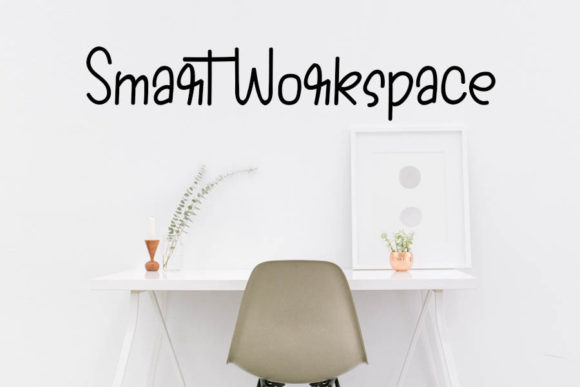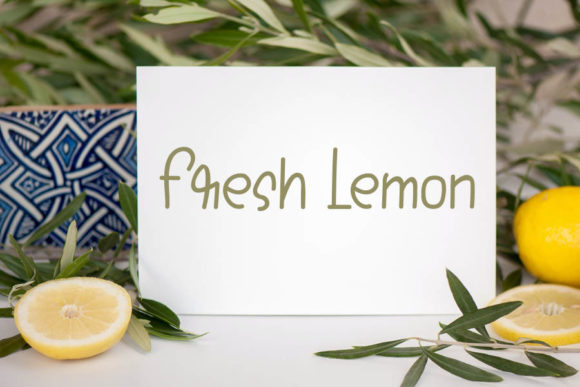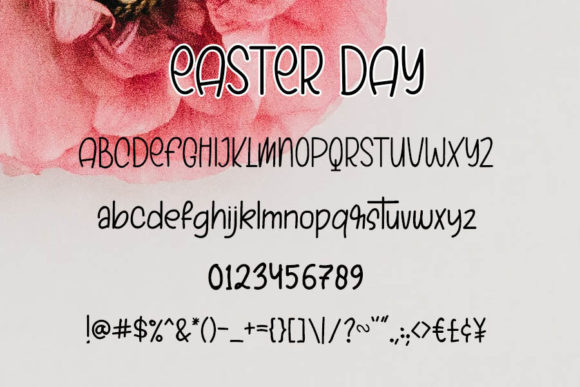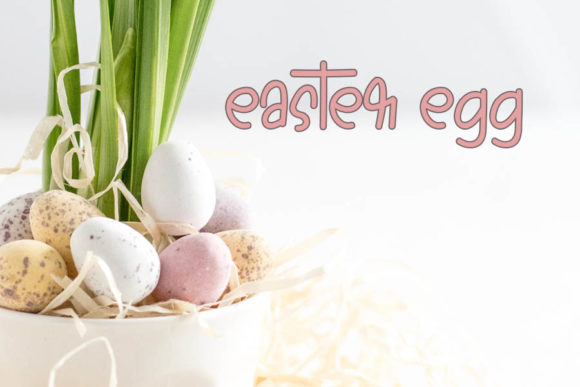
Easter Day Font: The Perfect Addition to Your Design Projects
Easter Day is a fun and relaxed handwritten font that has been making waves in the design community. Its unique and playful style makes it incredibly versatile, allowing it to fit a wide pool of designs and elevate them to the highest levels. In this article, we’ll dive into the world of Easter Day Font and explore its features, benefits, and uses, making it a must-have for designers and crafters alike.
What is Easter Day Font?
Easter Day Font is a carefully crafted handwritten font that exudes a sense of fun and relaxation. Its casual and approachable style makes it perfect for a variety of design projects, from Easter-themed crafts to everyday designs. The font’s unique charm lies in its ability to add a touch of personality to any project, making it stand out from the crowd.
Features of Easter Day Font
Easter Day Font boasts an impressive range of features that make it a top choice among designers and crafters. Some of its key features include:
- Handwritten style: Easter Day Font has a beautiful, handwritten style that gives it a personal and unique touch.
- Versatility: The font is incredibly versatile and can be used in a wide range of design projects, from digital designs to print materials.
- Easy to read: Despite its playful style, Easter Day Font is easy to read and understand, making it perfect for body text and headings.
- Multilingual support: The font supports multiple languages, making it a great choice for designers working on international projects.
Benefits of Using Easter Day Font
So, why should you choose Easter Day Font for your design projects? Here are just a few benefits of using this amazing font:
- Adds personality to your designs: Easter Day Font has a unique charm that can add a touch of personality to any project.
- Elevates your designs: The font’s playful style can elevate your designs to the highest levels, making them stand out from the crowd.
- Saves time: With Easter Day Font, you can create stunning designs in no time, thanks to its ease of use and versatility.
- Perfect for Easter-themed designs: As the name suggests, Easter Day Font is perfect for Easter-themed designs, but it’s also versatile enough to be used in other designs.
Uses of Easter Day Font
Easter Day Font is a versatile font that can be used in a wide range of design projects, including:
- Easter-themed crafts: The font is perfect for creating Easter-themed crafts, such as Easter egg designs, Easter bunny illustrations, and more.
- Digital designs: Easter Day Font can be used in digital designs, such as social media graphics, blog posts, and website headers.
- Print materials: The font is also suitable for print materials, such as brochures, flyers, and posters.
- Handmade products: Easter Day Font can be used to create beautiful handmade products, such as greeting cards, invitations, and gift tags.
Tips for Using Easter Day Font
Here are a few tips for using Easter Day Font in your design projects:
- Experiment with different colors: Easter Day Font looks great in a variety of colors, so don’t be afraid to experiment and find the perfect color scheme for your design.
- Pair it with other fonts: The font pairs well with other fonts, so try combining it with other fonts to create a unique and interesting design.
- Use it for headings and body text: Easter Day Font is easy to read, making it perfect for both headings and body text.
Easter Day Font is a fun and relaxed handwritten font that is perfect for designers and crafters looking to add a touch of personality to their designs. Its versatility, ease of use, and unique charm make it a top choice for a wide range of design projects. Whether you’re working on Easter-themed crafts or everyday designs, Easter Day Font is sure to elevate your designs to the highest levels.